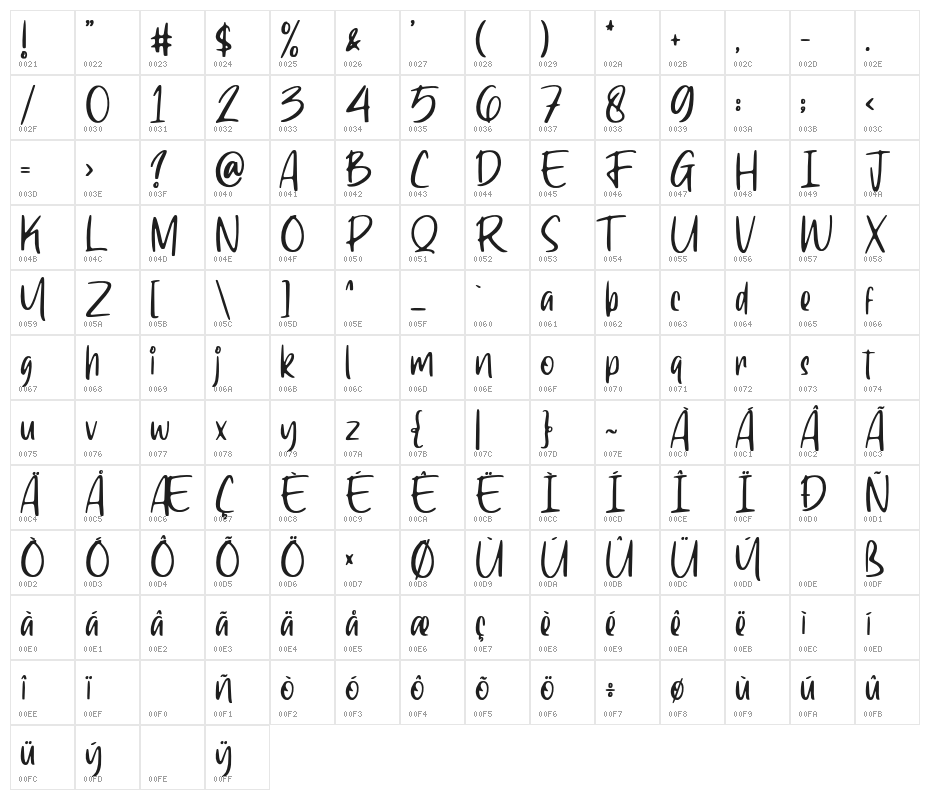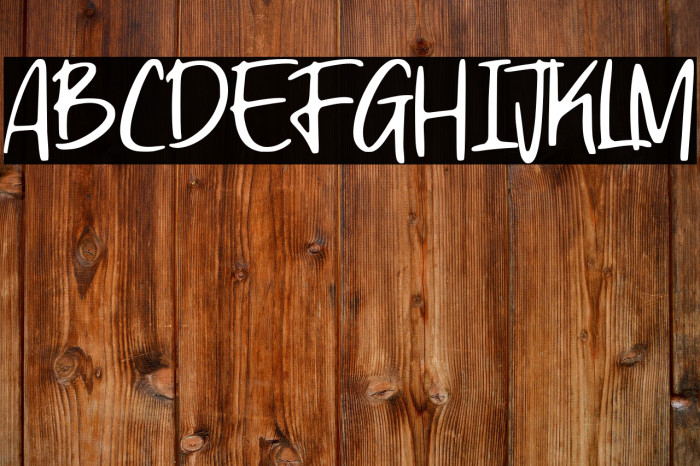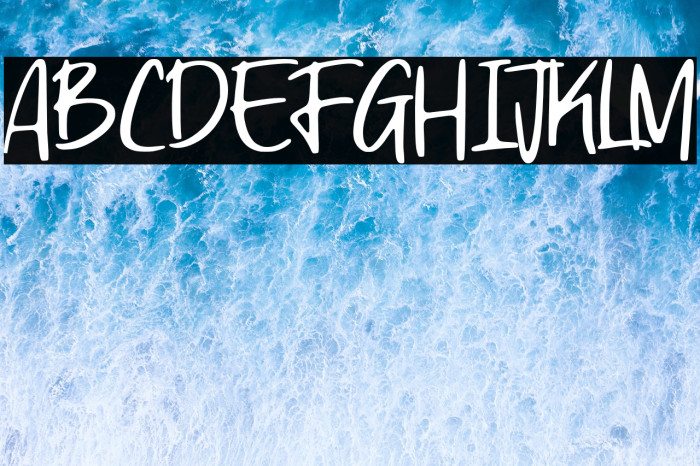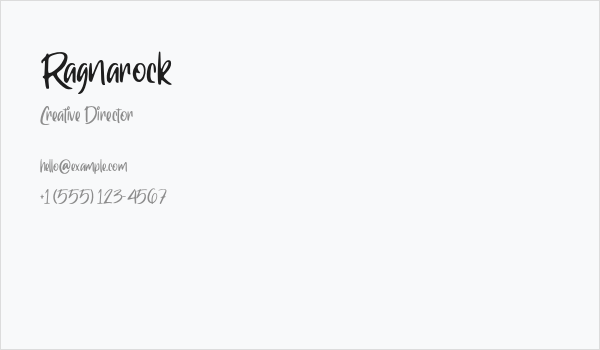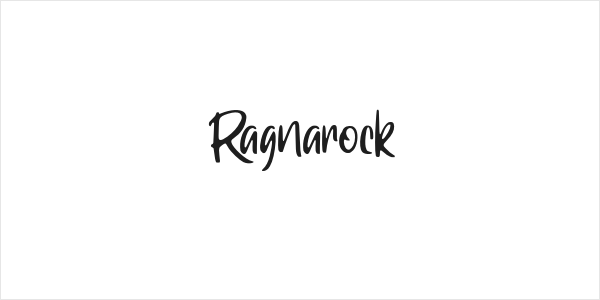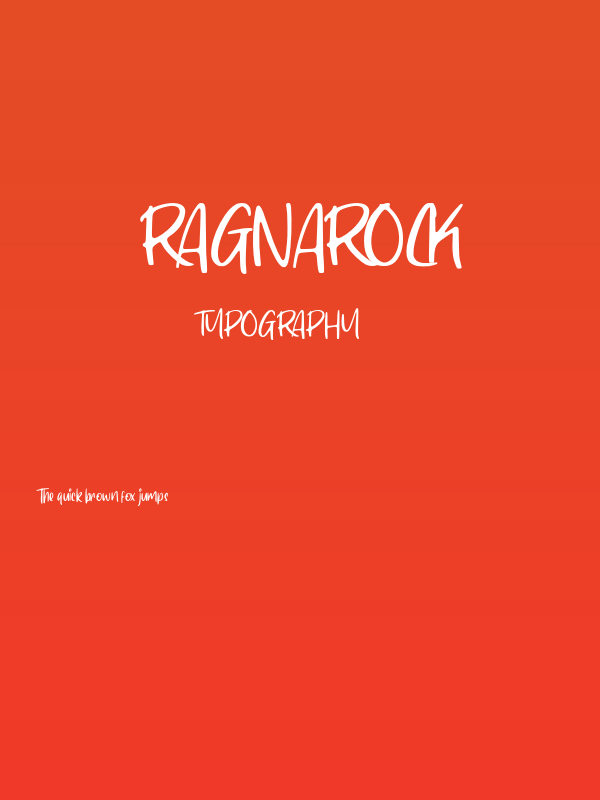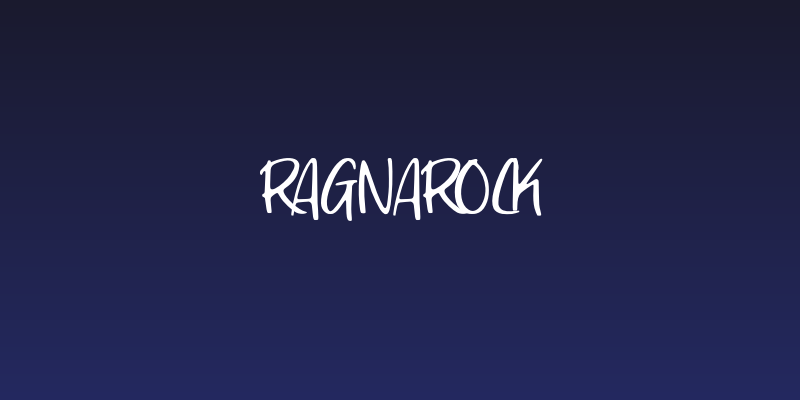
Ragnarock Font
Ragnarock Description
This font features a bold, handwritten style with a playful and energetic vibe. The letters are slightly slanted, giving a dynamic and informal appearance. The strokes are thick and consistent, with rounded edges that add a friendly touch. The uppercase and lowercase letters maintain a cohesive look, while the numbers and special characters are designed to match the overall style. This font's unique personality makes it stand out, suitable for creative and casual projects.
| Proposed Projects | Ideal for greeting cards, posters, social media graphics, and branding projects that require a personal touch. |